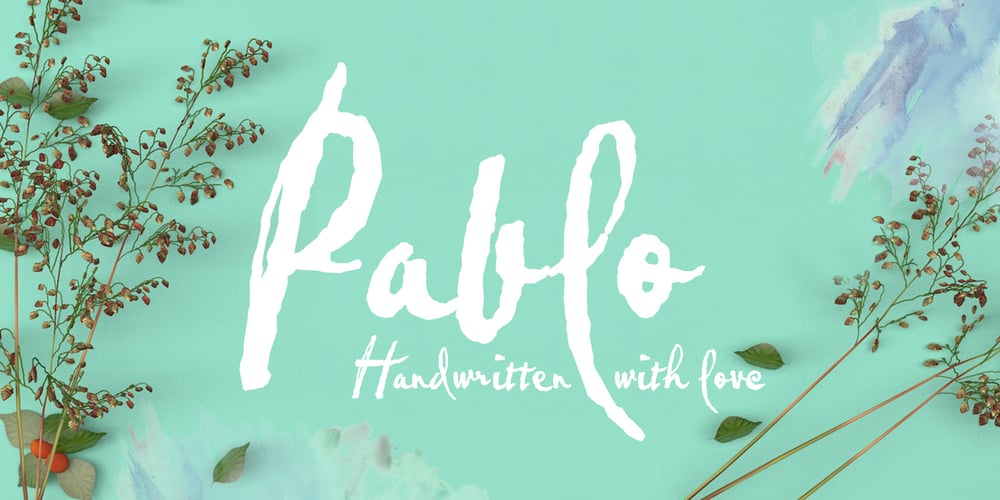
Pablo Font Family was designed by Trevor Pettit and published by ITC. Pablo contains 1 styles and family package options. Pablo is the work of British designer Trevor Pettit, who based this dramatic typeface on the signature of Pablo Picasso. The chunky lowercase reflects the very essence of Picasso’s influence and the initial capitals can also be used on their own. Pablo is excellent for work requiring a vivid, cutting edge appearance.